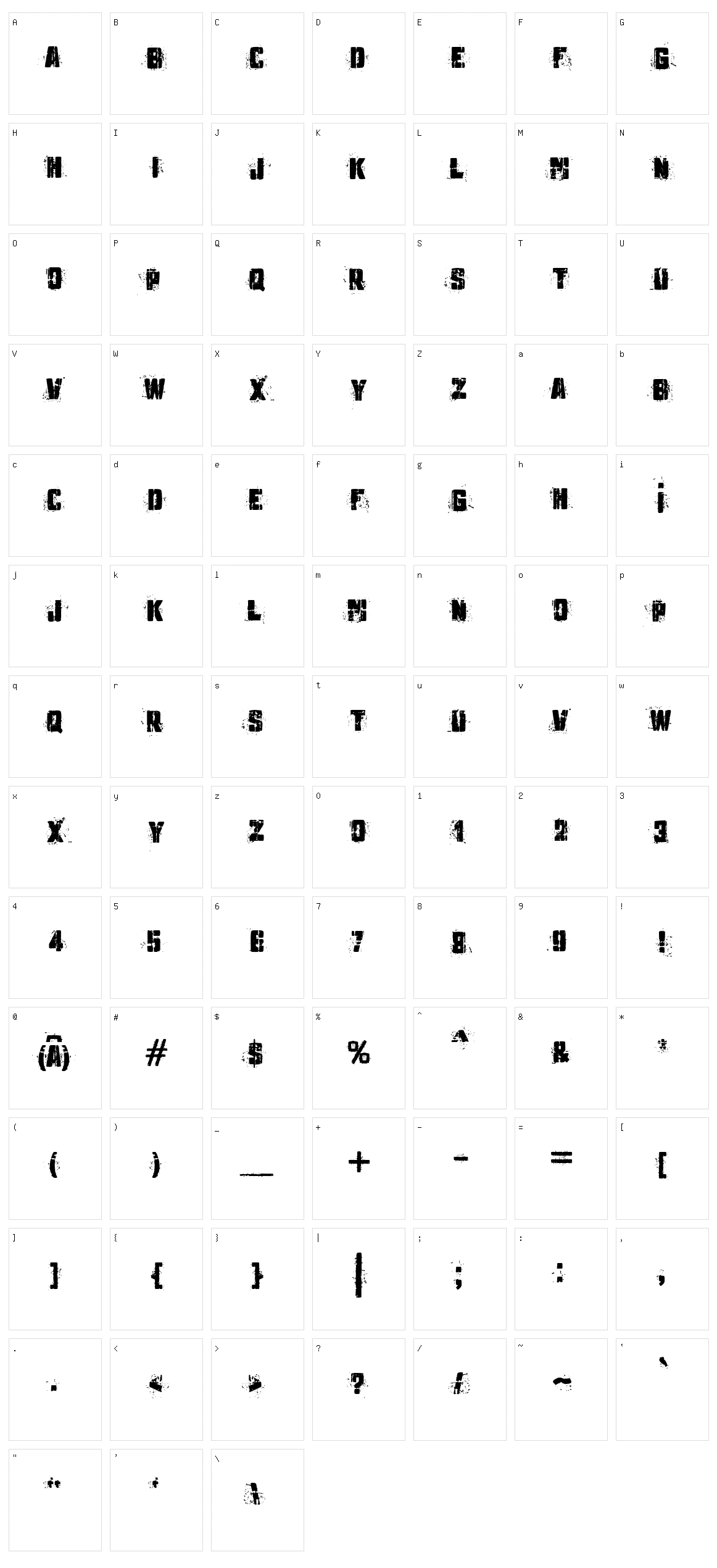
MB_Underground - Raw, dirty, grunge font by ModBlackmoon. [Photoshop]
Incl. English, European and Cyrillic letters and Numbers.
Designed: May 2012.
Author: ModBlackmoon